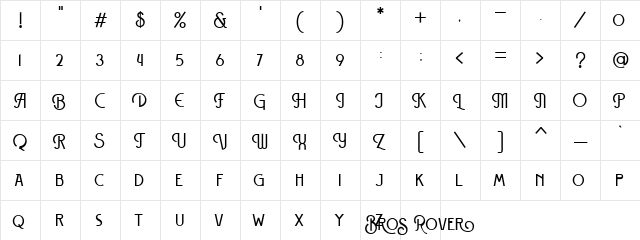
Bros Rover Regular
| Foundry | Blankids Studio |
| Designer | Bangkit Tri Setiadi |
Design Context for Bros Rover Typeface
Bros Rover is a composed and adaptable typeface that performs quietly and consistently across a wide range of design contexts.